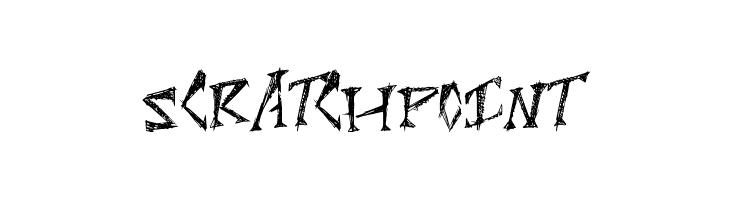
A rugged, edgy font with sharp, jagged lines and a rebellious aesthetic.
A bold, distressed font with a scratched, textured appearance.
A bold, jagged font with a scratch-like, distressed appearance.
A dynamic, hand-drawn font with a graffiti-like, expressive style.